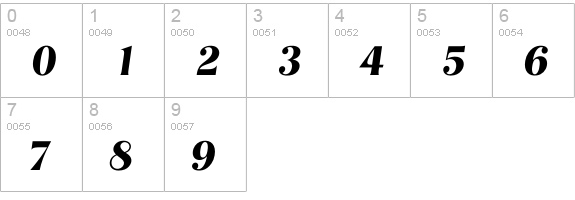
Inashville DemiBold is a sub-bold, structured variant in the Inashville typeface family \xE2\x80\x94 well suited to sub-headlines and emphasised passages.
Introducing Inashville DemiBold, a font that exudes confidence and sophistication. With its bold and distinctive letterforms, this typeface commands attention and adds a touch of modernity to any design project. Inashville DemiBold is perfect for headlines, logos, posters, and other displays that require a strong visual impact. Its clean lines and sharp edges give it a contemporary yet timeless appeal, making it suitable for a wide range of applications. What sets Inashville DemiBold apart is not just its impeccable design, but also its availability. This incredible font is freely available to download at FontsMarket.com, allowing designers and creatives to access its beauty without any restrictions or limitations. Whether you're a professional designer or a hobbyist, Inashville DemiBold is a valuable addition to your font collection. Its versatility and boldness make it a reliable choice for any project, while its unique character adds a touch of elegance and sophistication. So, if you're looking for a font that combines strength, style, and accessibility, look no further than Inashville DemiBold. Download it for free at FontsMarket.com and elevate your designs to new heights.